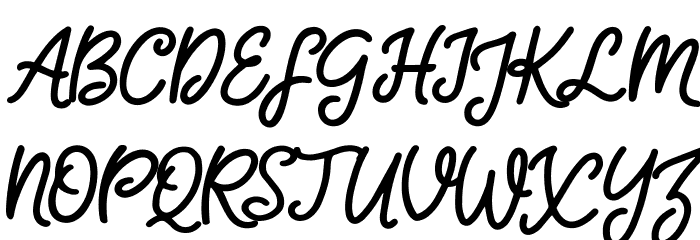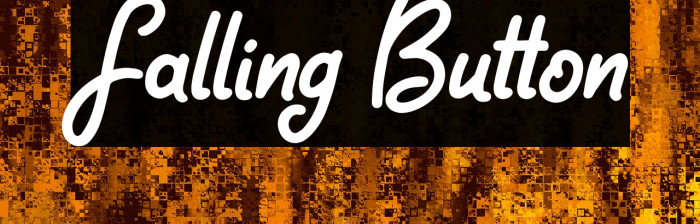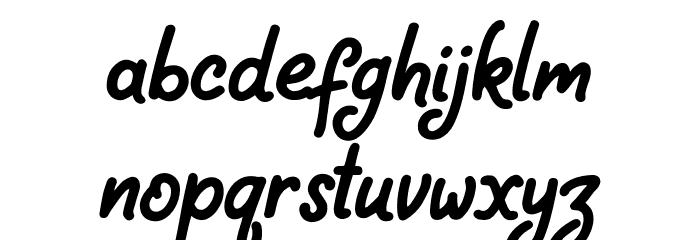
Falling Button Font
Falling Button Description
This font features a flowing, cursive style that exudes a sense of elegance and fluidity. The characters are interconnected, creating a seamless and harmonious appearance. The strokes are bold and consistent, with a slight slant that adds a dynamic feel. The uppercase letters are slightly larger and more pronounced, while the lowercase letters maintain a balanced and cohesive look. The overall design is reminiscent of traditional calligraphy, yet it maintains a modern twist with its boldness and clarity.